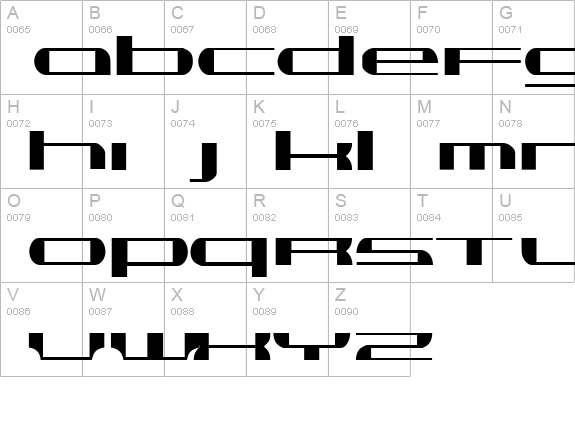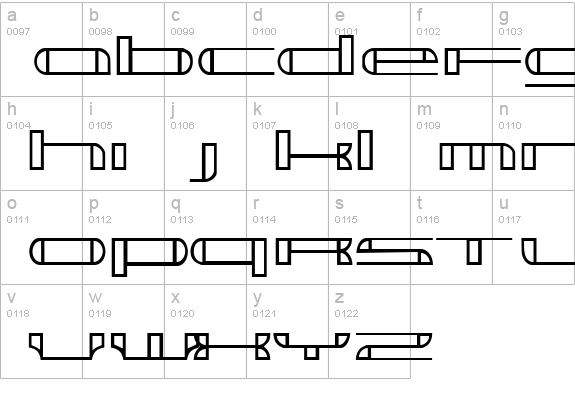
risk Font Details
Introducing Risk Font - a dynamic and eye-catching typeface designed to make a bold statement in your designs. With its edgy and modern aesthetic, Risk Font is perfect for creating attention-grabbing headlines, striking logos, and impactful branding materials. Its sharp angles and unique letterforms exude a sense of adventure and excitement, making it ideal for projects that demand a touch of daring creativity. The best part? Risk Font is available for free download at FontsMarket.com, making it easily accessible to designers and creatives looking to add a touch of risk-taking flair to their work. Whether you're working on a poster, website, or packaging design, Risk Font is sure to make a powerful impression and set your project apart from the rest. Download Risk Font today and unleash your creativity with this striking typeface.